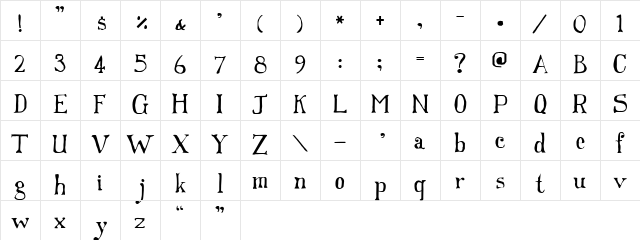
Franks Regular
Design Context for Franks
Franks is a composed and adaptable typeface that performs quietly and consistently across a wide range of design contexts.
Pro Tip: Use Franks in both headline and body roles to test its range before committing to a single application.